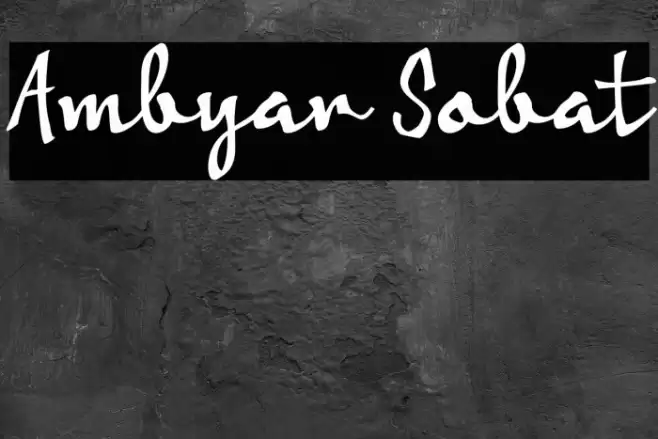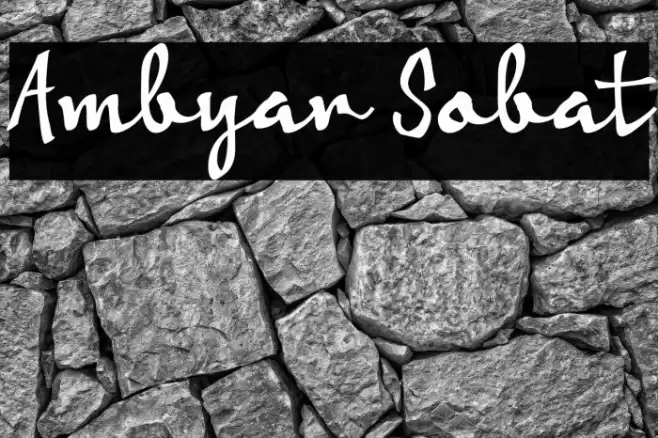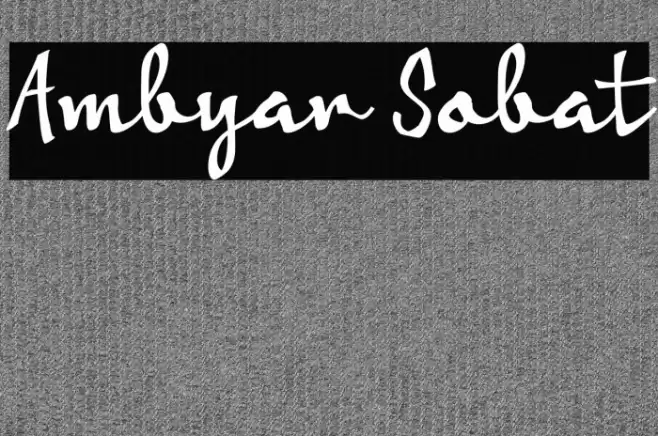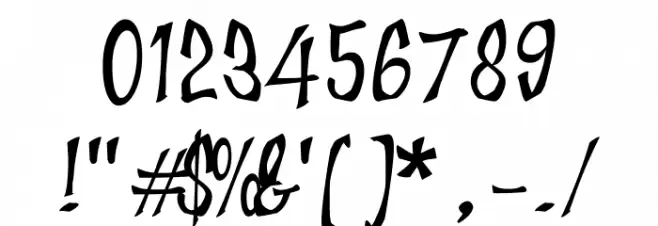
Ambyar Sobat Font
Ambyar Sobat Description
This font features a dynamic and expressive handwritten style, characterized by its fluid and slightly irregular strokes. The uppercase letters are bold and slightly slanted, giving a sense of movement and energy. The lowercase letters maintain a consistent flow, with some characters extending below the baseline, adding to its casual and artistic appeal. The numerals are distinct and maintain the same lively style, making them easily readable. Special characters are creatively integrated, maintaining the overall aesthetic. This font is perfect for projects that require a personal touch or a creative flair.
A dynamic and expressive handwritten font with bold, fluid strokes from Uncategorized fonts.